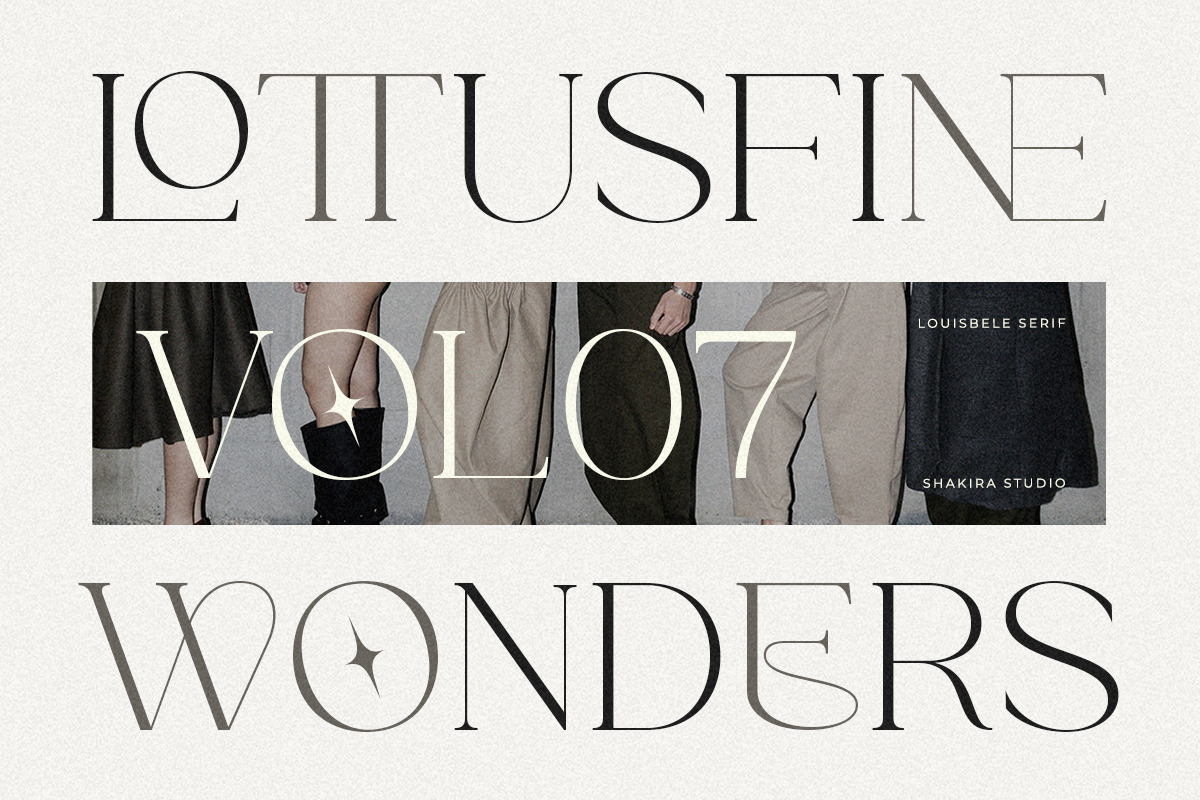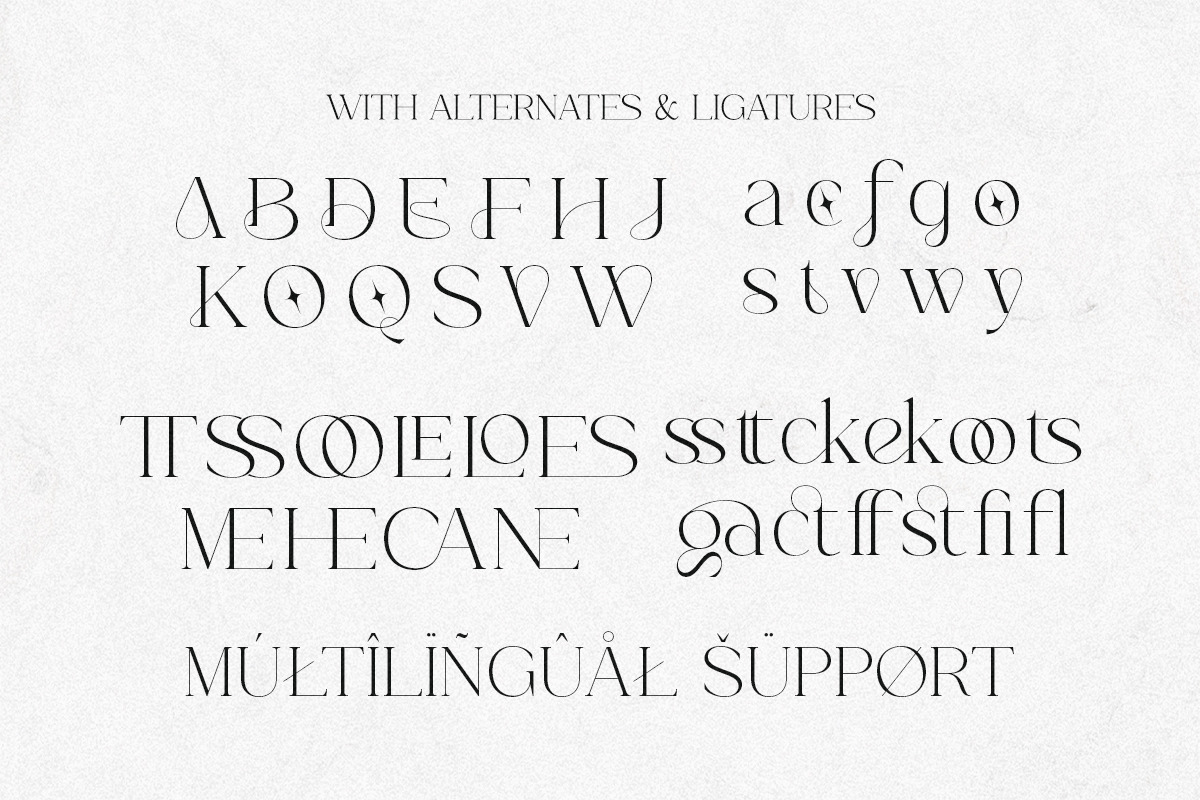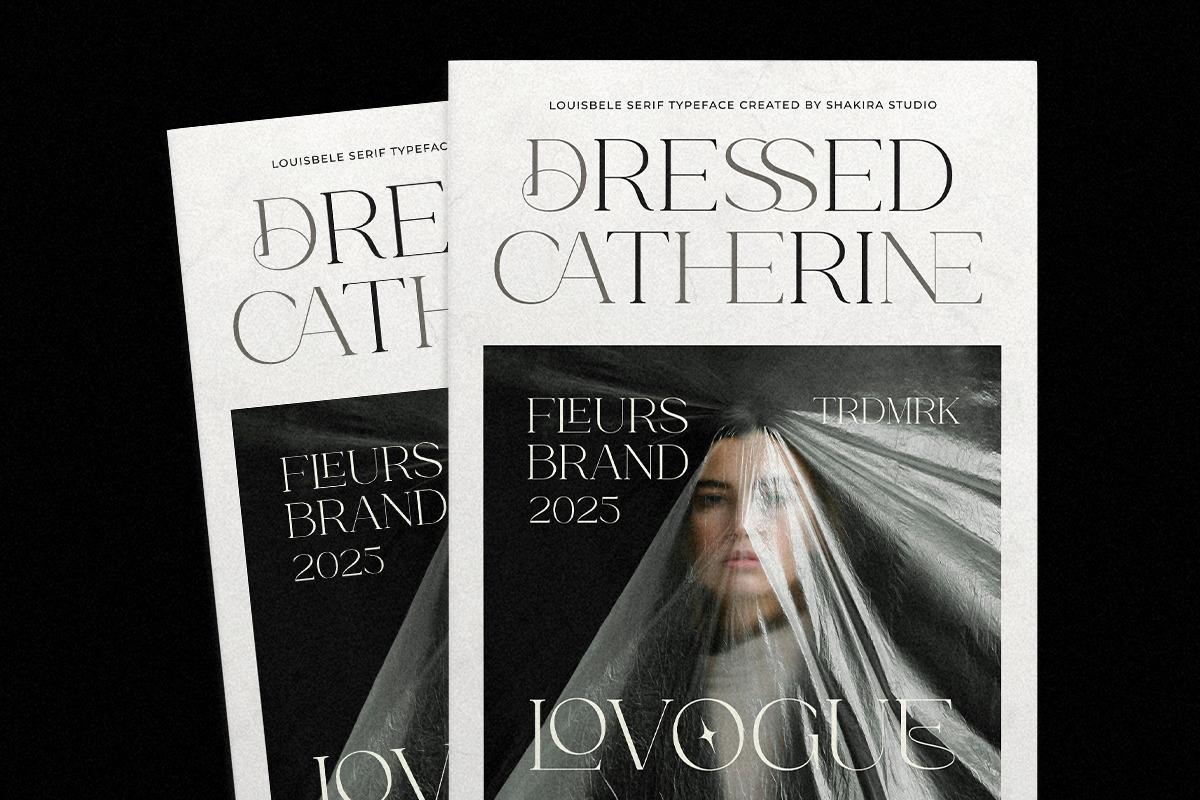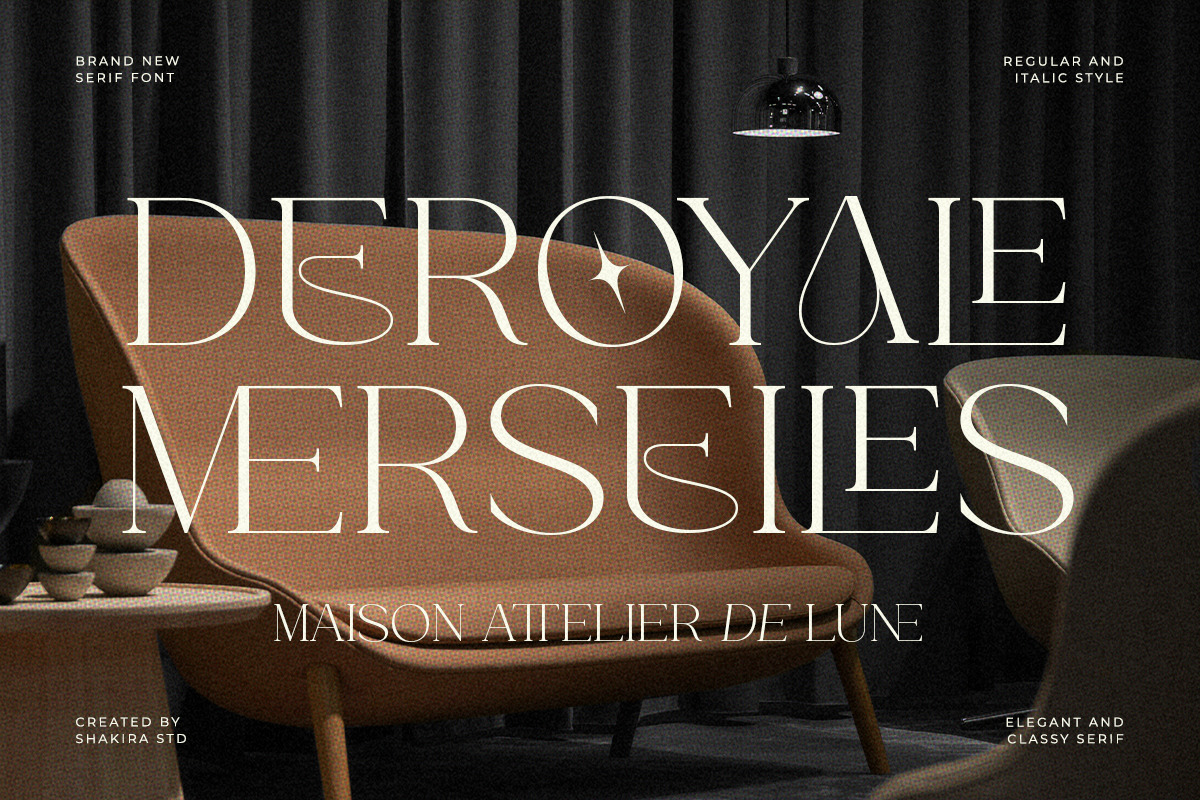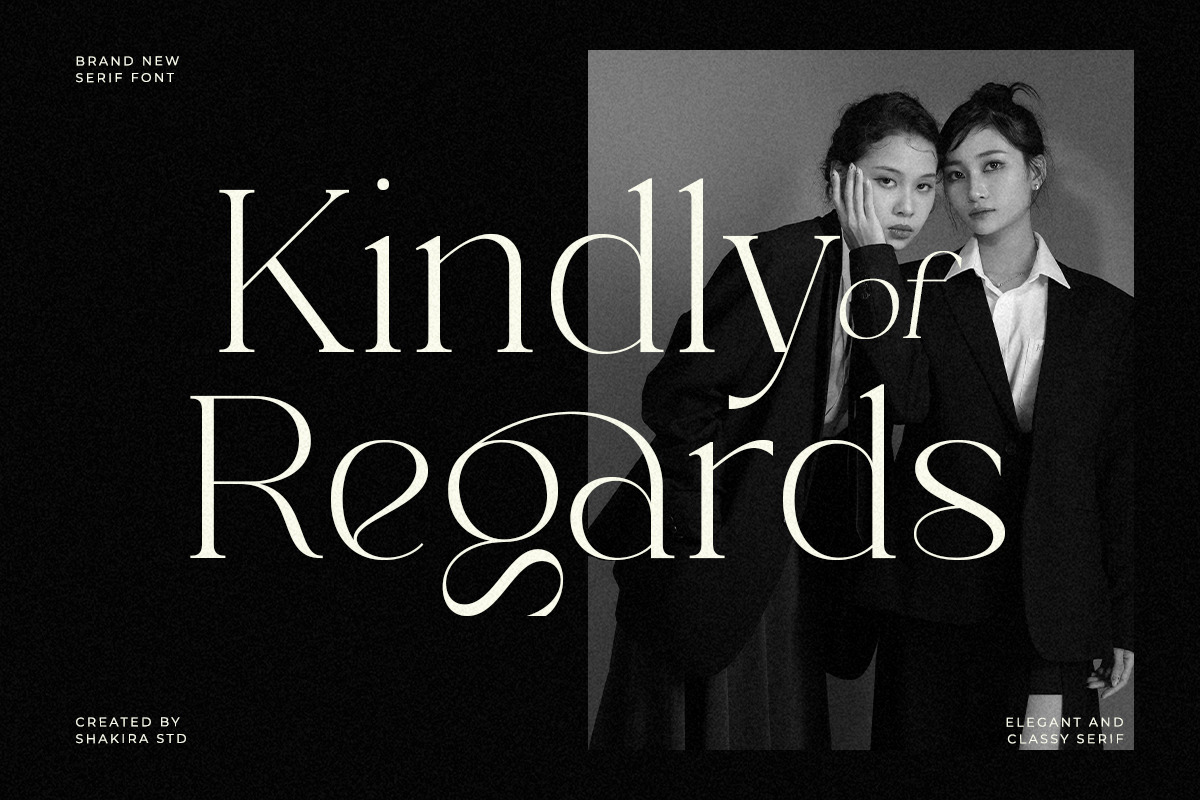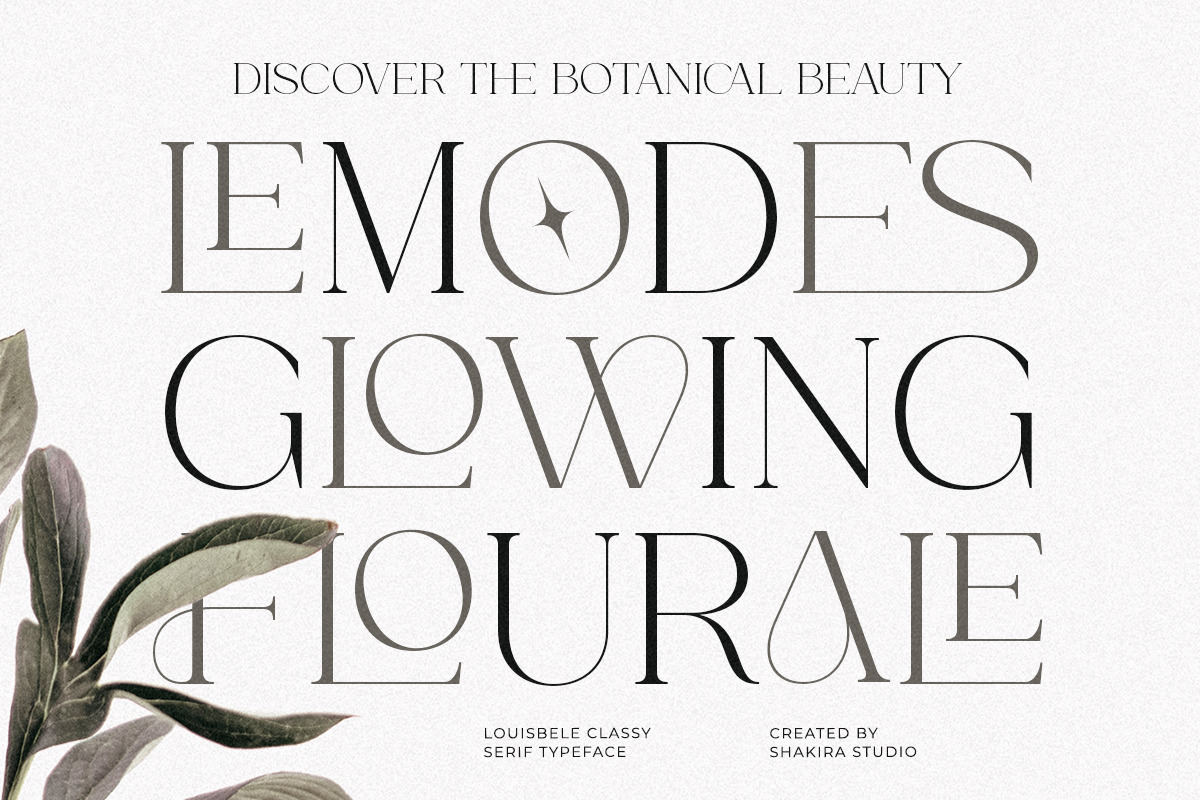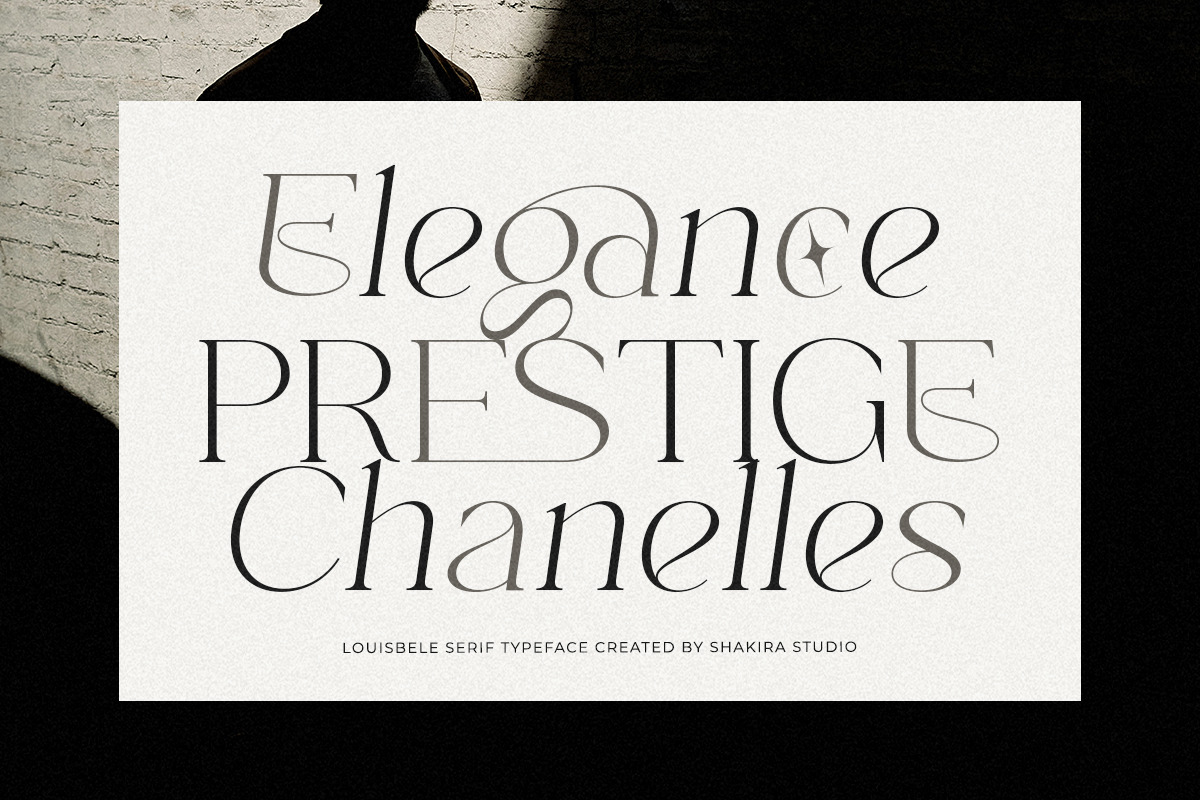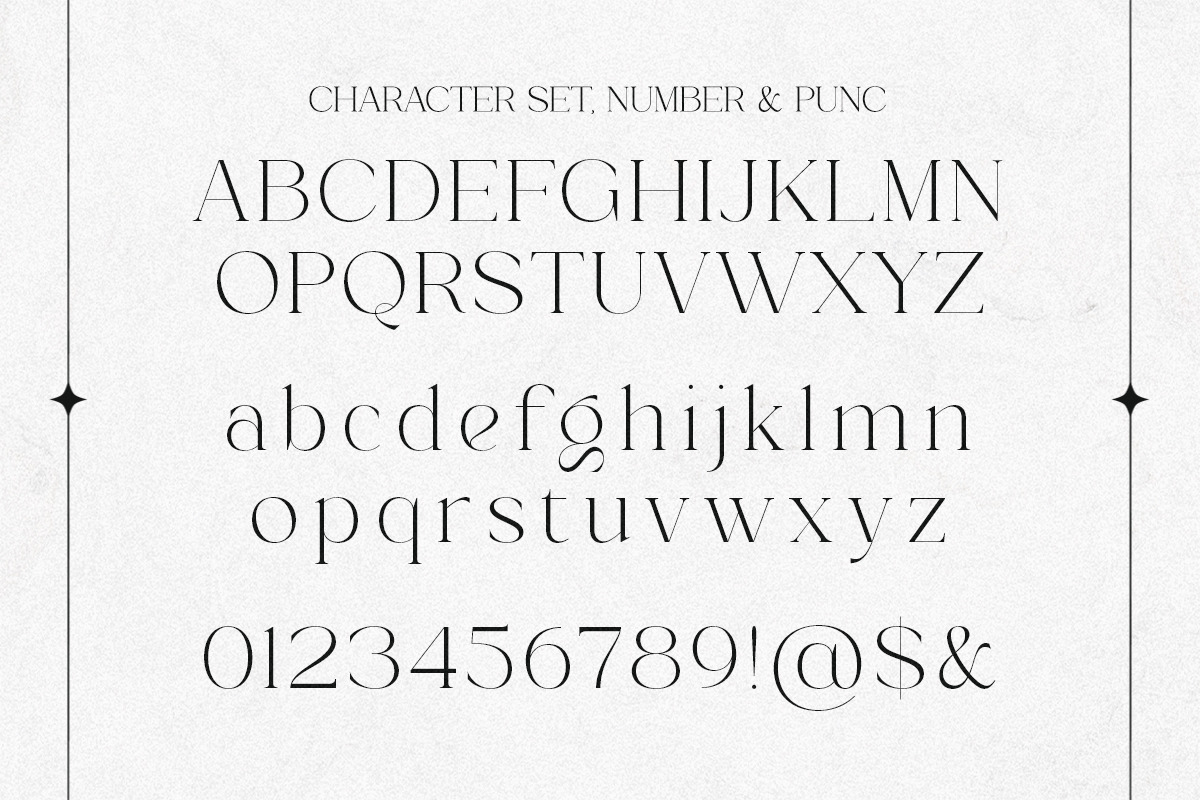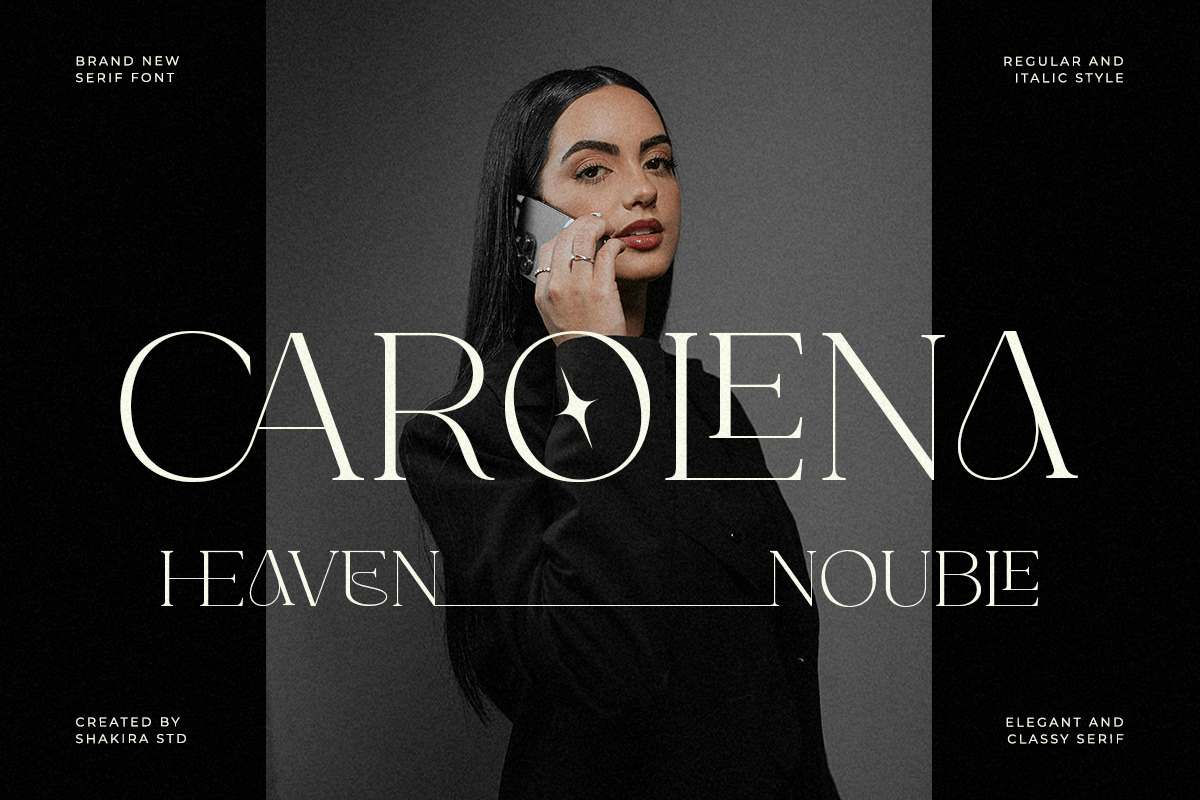
Classy Elegant Serif - Louisbele
Introducing Louisbele, a classy serif typeface with refined details and elegant proportions. Designed for fashion brands, high-end packaging, editorial headlines, and modern luxury identity systems.
Its clean structure and subtle contrast create a timeless and premium aesthetic.
- Regular & Italic
- Alternates & ligatures